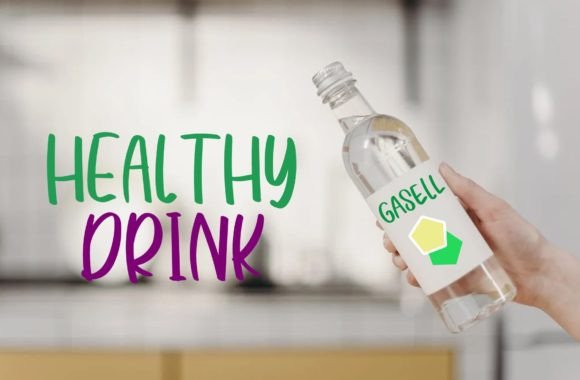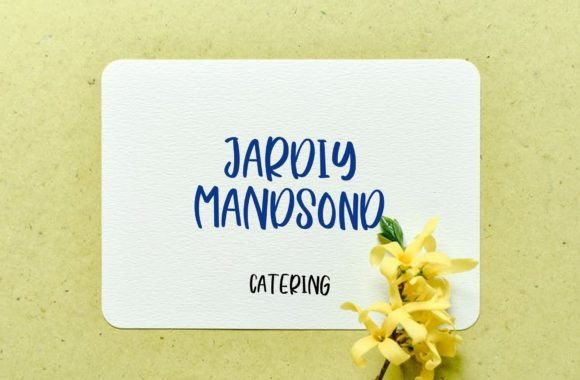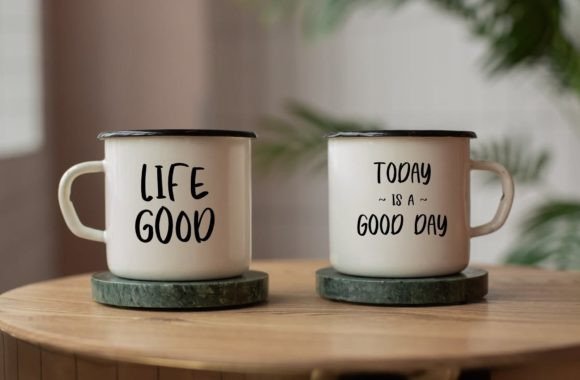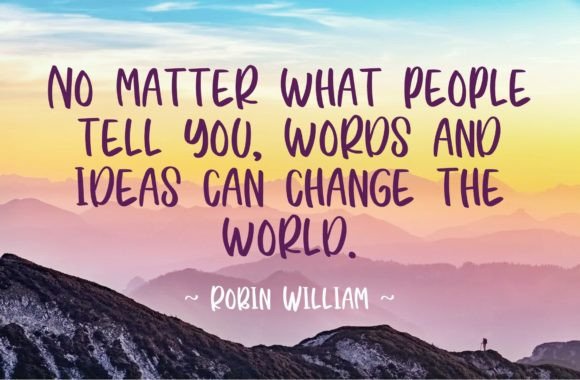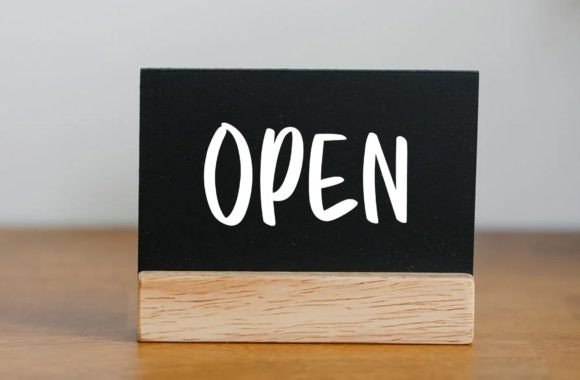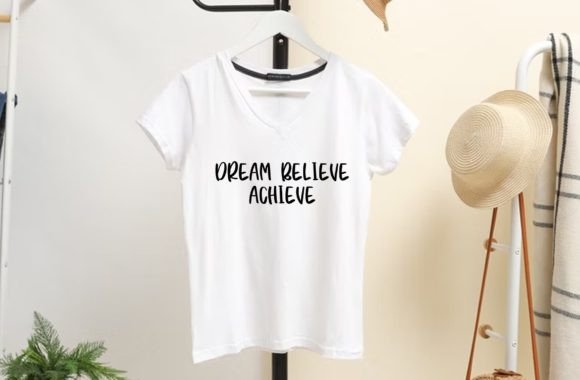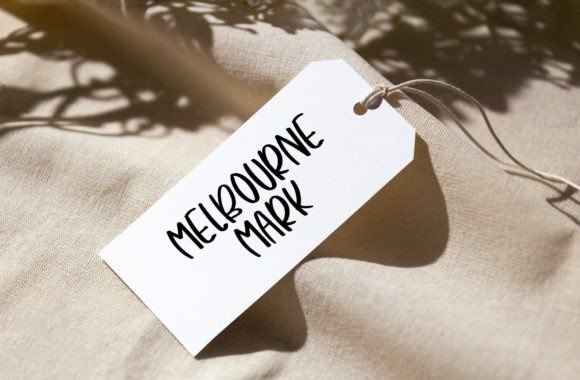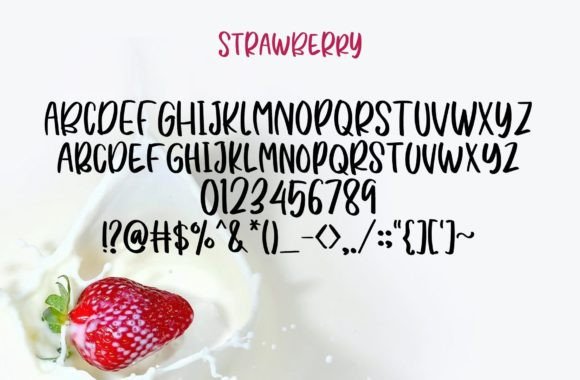
Strawberry Font
About Strawberry Font
“Strawberry is a truly enchanting handwritten font that radiates beauty and charm. Its delicate and graceful characters make it a perfect choice to elevate your projects and make them truly amazing. By incorporating Strawberry into your creative work, you’ll add a touch of elegance and sophistication that enhances every aspect of your designs.
What sets Strawberry apart is its timeless appeal. The font’s handwritten style carries a sense of warmth and authenticity, making your text feel personal and inviting. Whether you’re designing invitations, greeting cards, logos, or any other creative piece, Strawberry imparts a sense of grace that captivates viewers and leaves a lasting impression.
Strawberry’s versatility makes it suitable for a wide range of applications. Its elegant demeanor lends itself well to various design contexts, from formal occasions like weddings and upscale events to more casual settings like social media posts and blog headers. Regardless of the platform, Strawberry brings a touch of sophistication that ensures your designs stand out.
Incorporating Strawberry into your projects not only enhances the visual aesthetics but also creates a connection with your audience. Its flowing, handwritten script adds a personal touch, evoking emotions and resonating with viewers. The font’s smooth lines and intricate details make it visually appealing, creating a harmonious balance that draws the eye and enhances readability.
Adding Strawberry to your creative toolkit is like adding a precious gem to your collection. Its beauty is not just skin deep; it enhances the overall impact of your designs, making them memorable and captivating. Whether you’re a professional designer or someone passionate about creative expression, Strawberry provides the perfect canvas for your ideas to flourish.
In summary, Strawberry is more than just a font; it’s a source of inspiration that breathes life into your projects. Its beautiful handwritten style, combined with its timeless elegance, makes it a must-have for any designer or creative enthusiast. Embrace the enchanting allure of Strawberry and let it transform your designs into masterpieces that leave a lasting impression on everyone who sees them.”